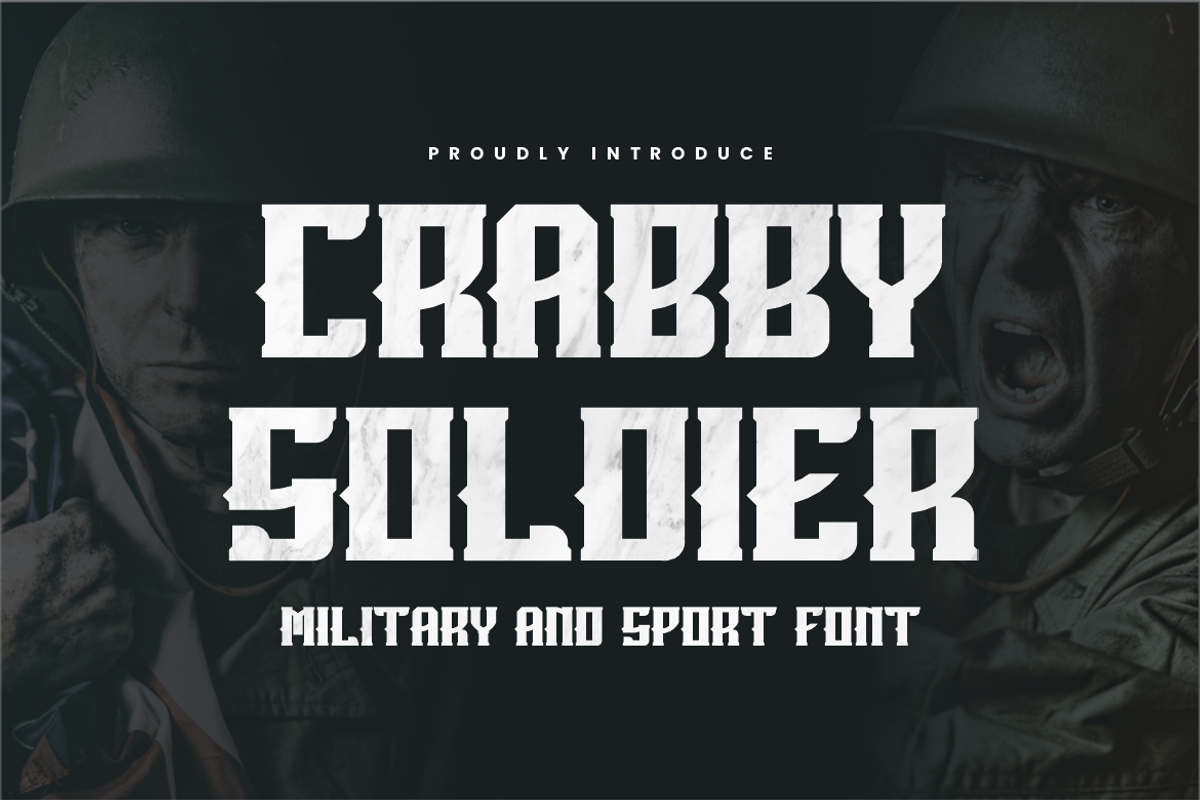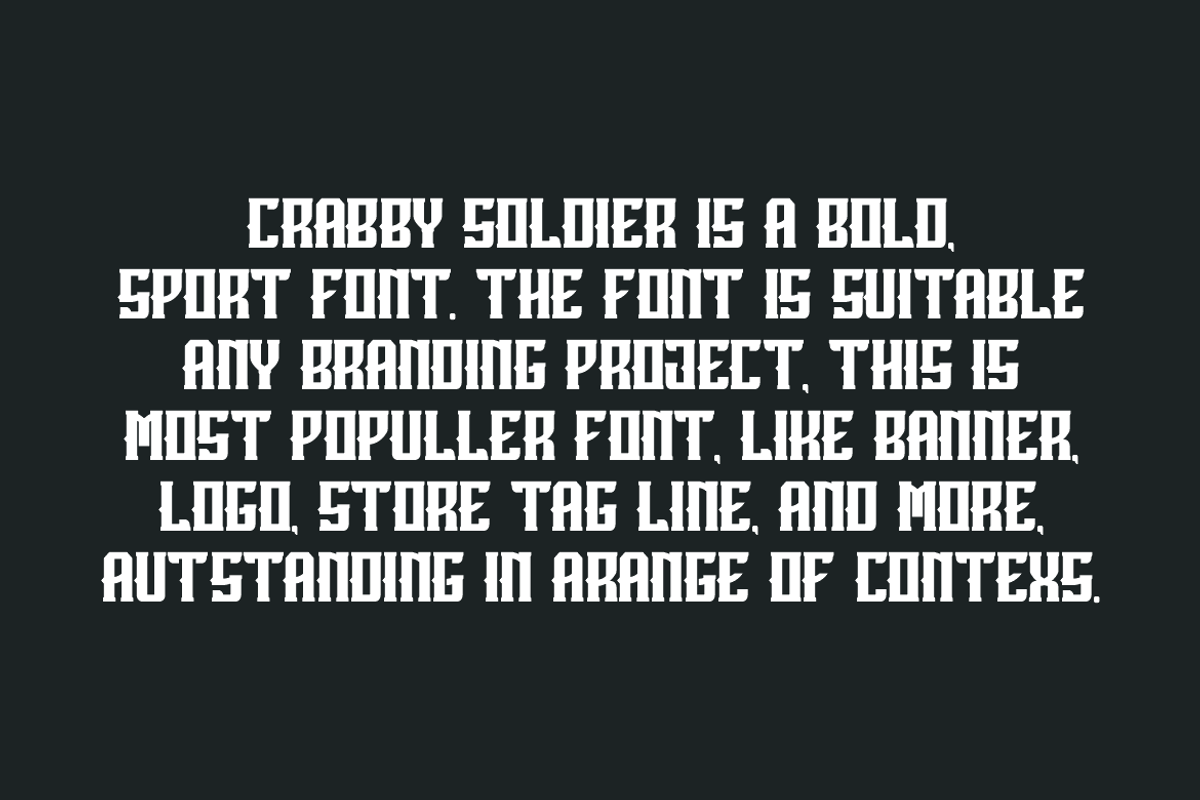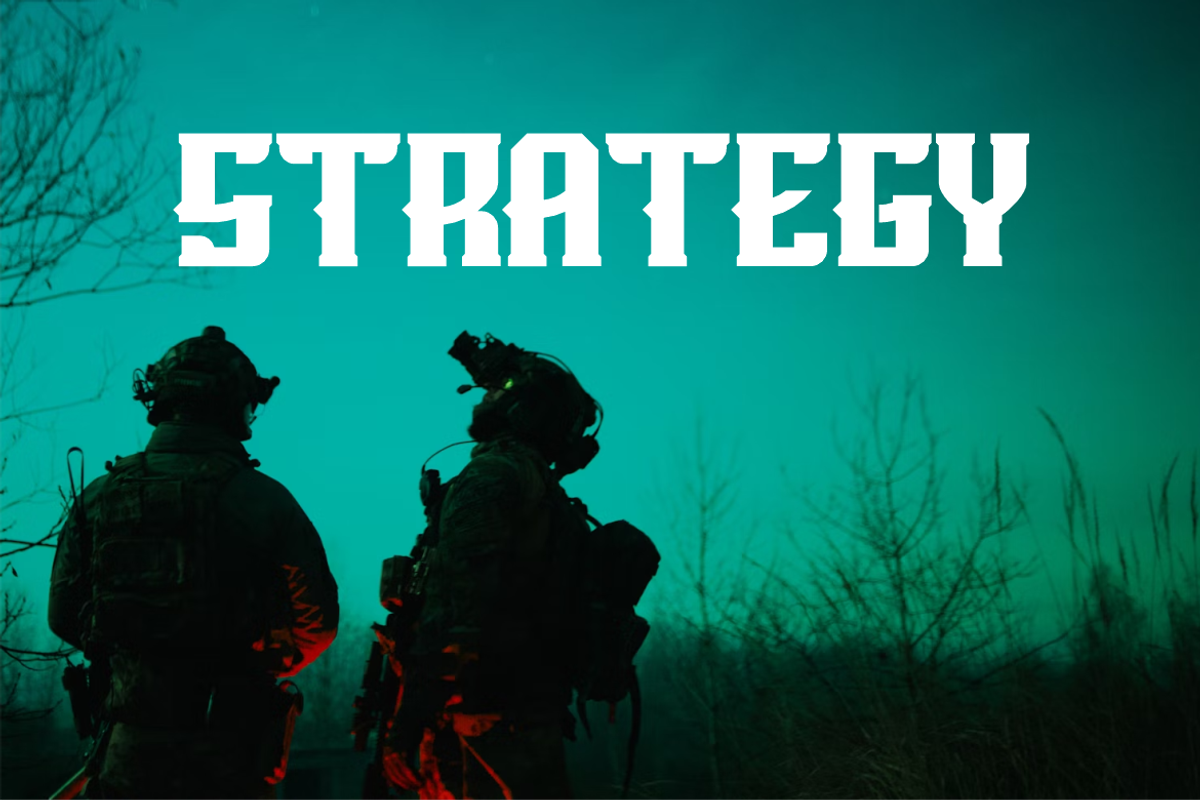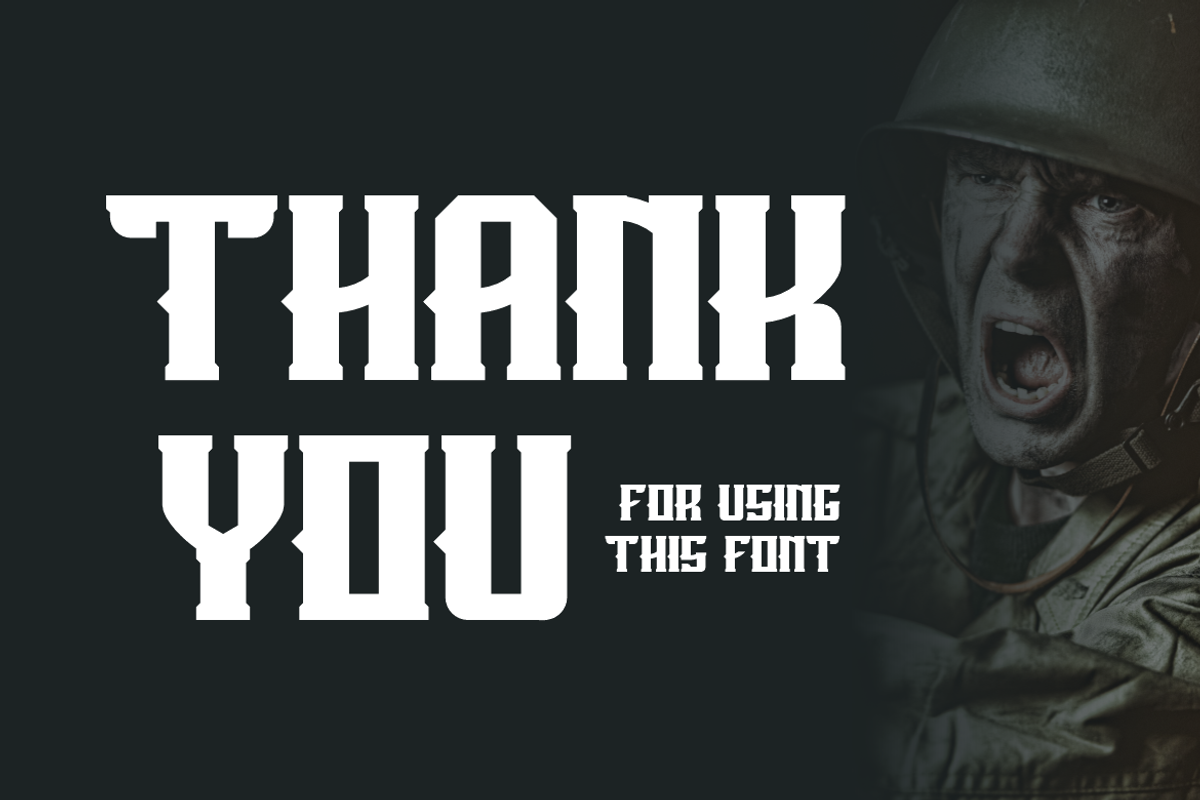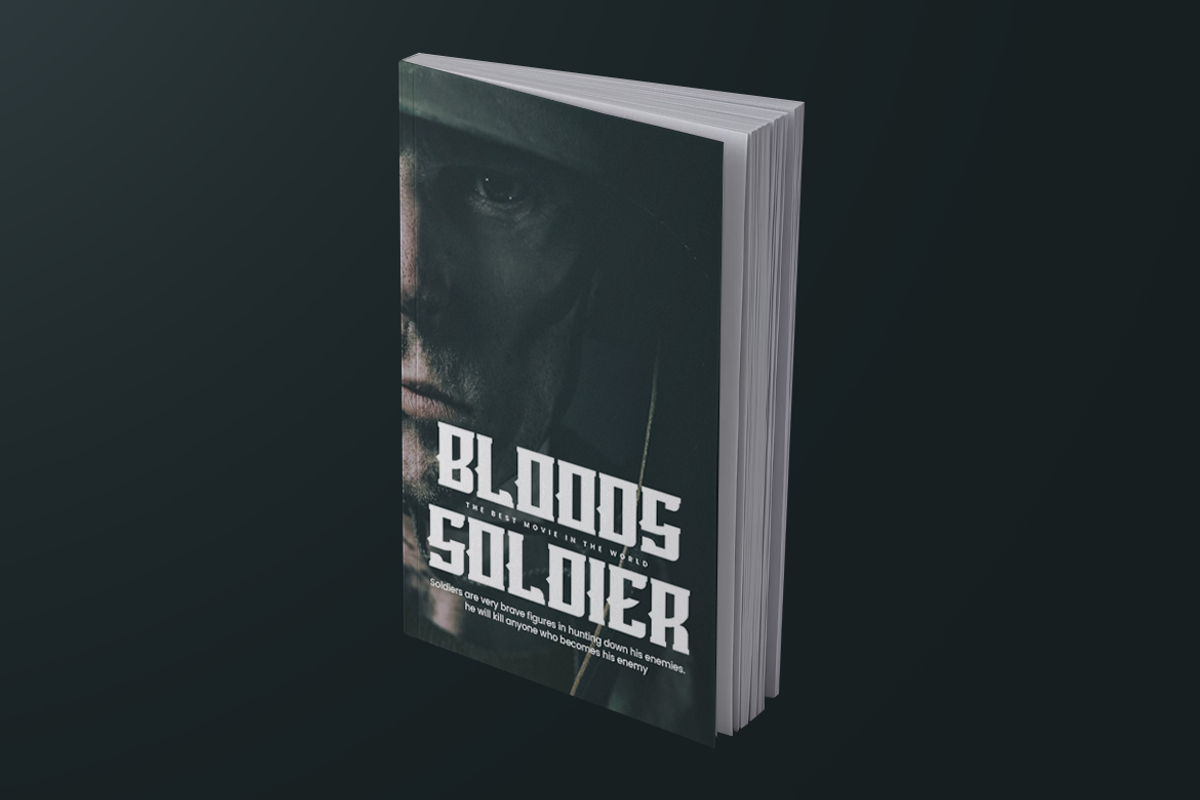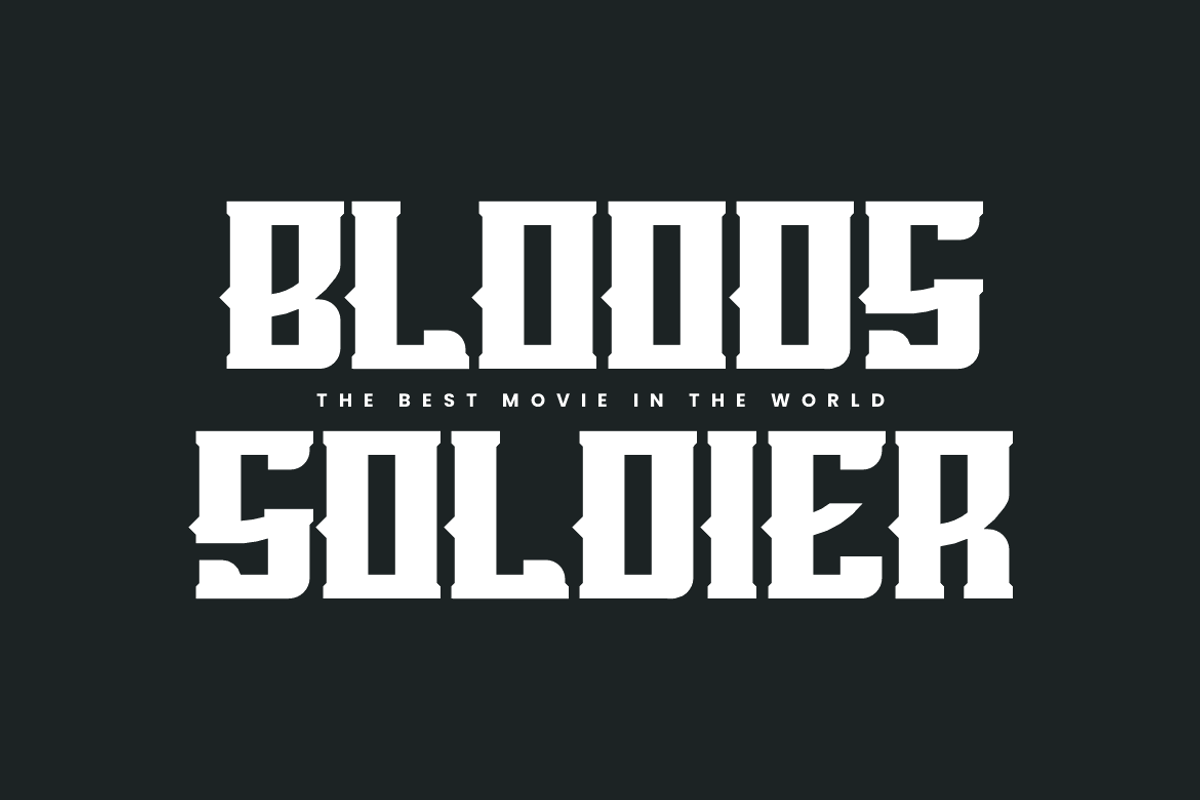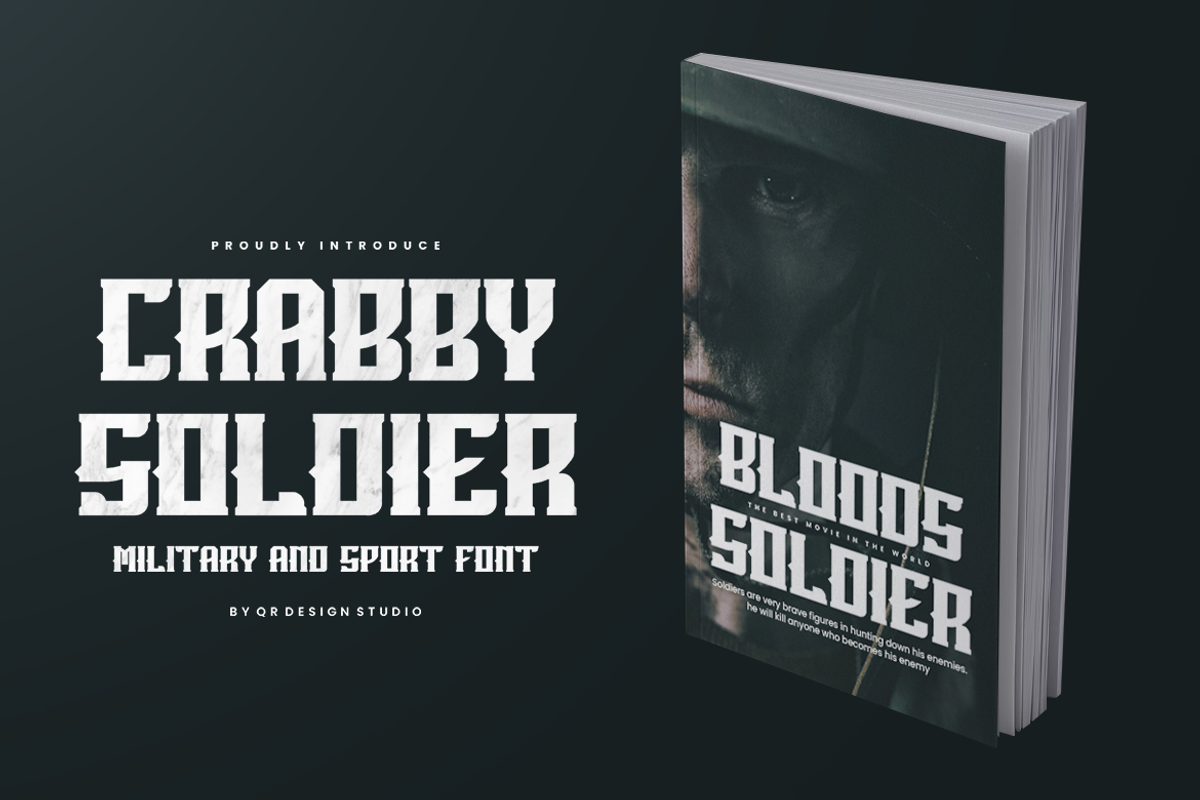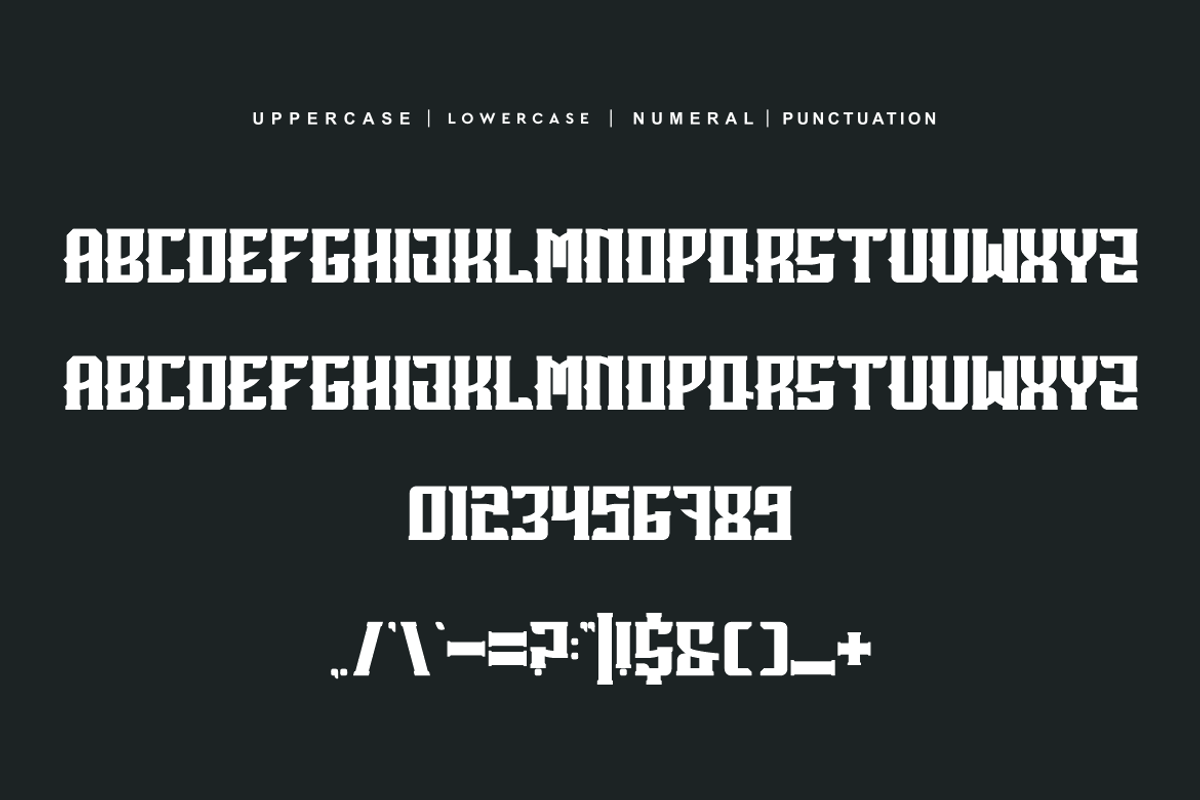
Crabby Soldier - Sport & Military Fo
Crabby Soldier - Sport & Military Font is a bold and authentic display font. The font is suitable for any branding project like poster, logo, sport, and many more. Outstanding in a wide range of contexts.